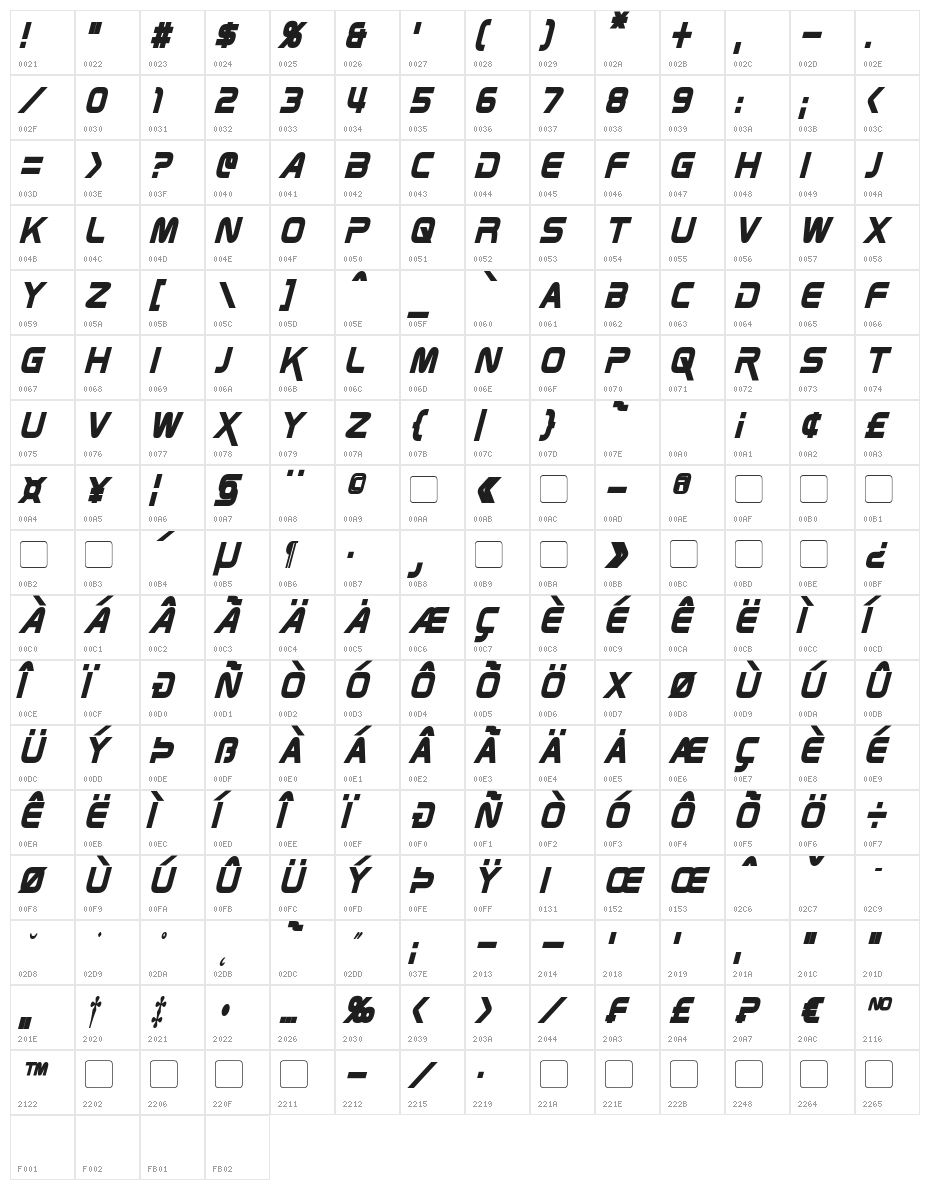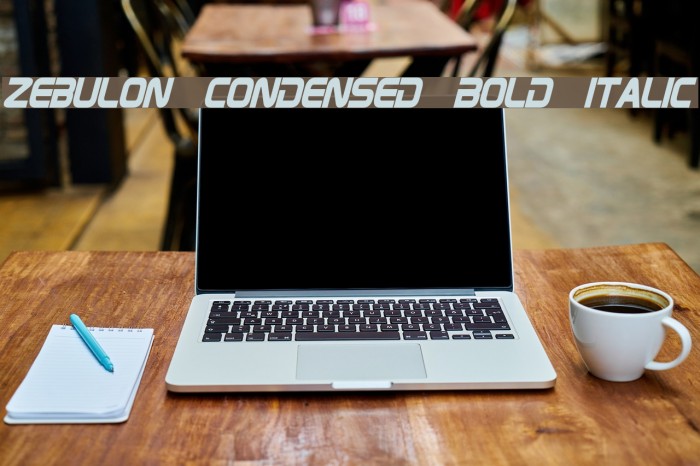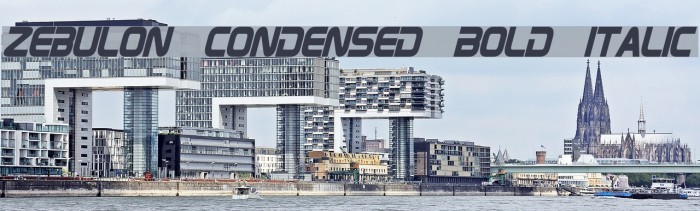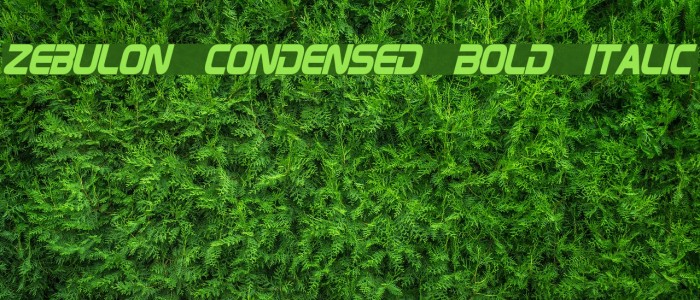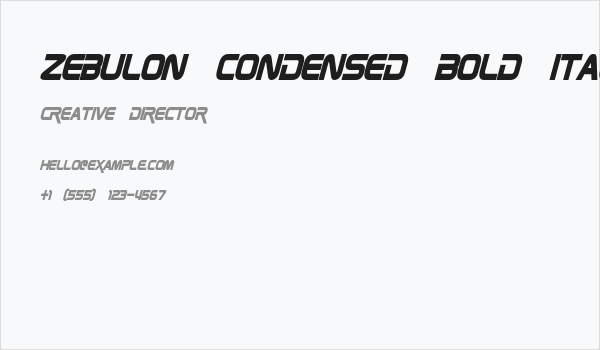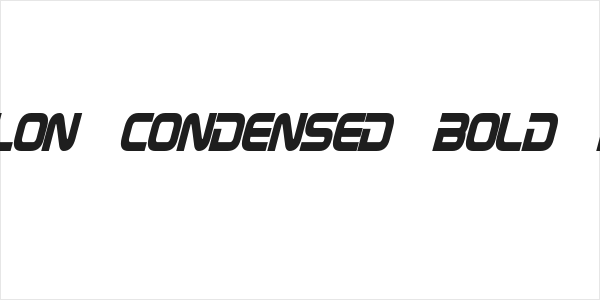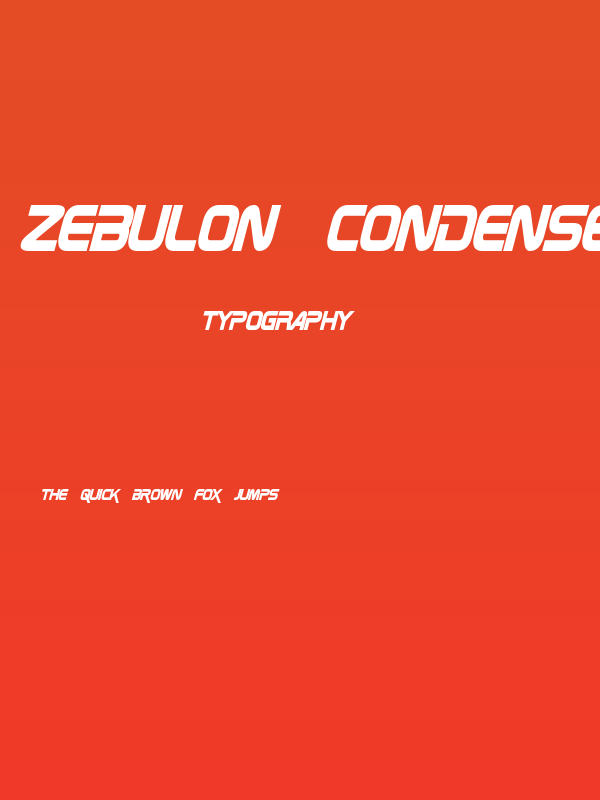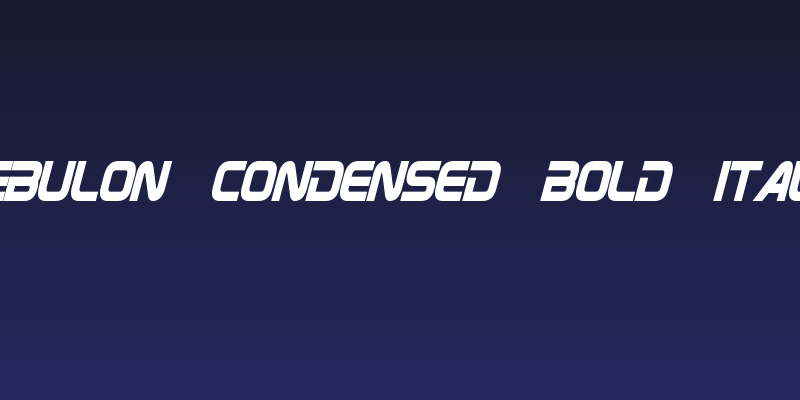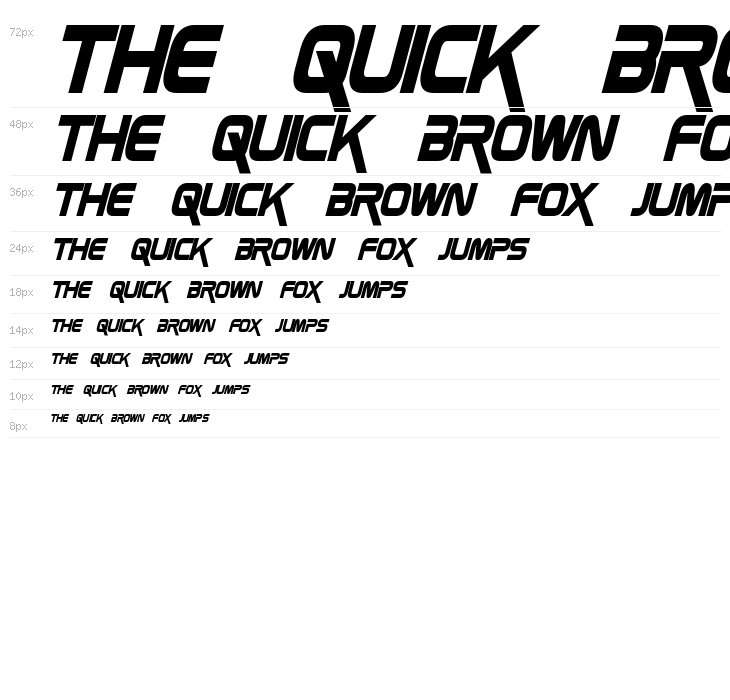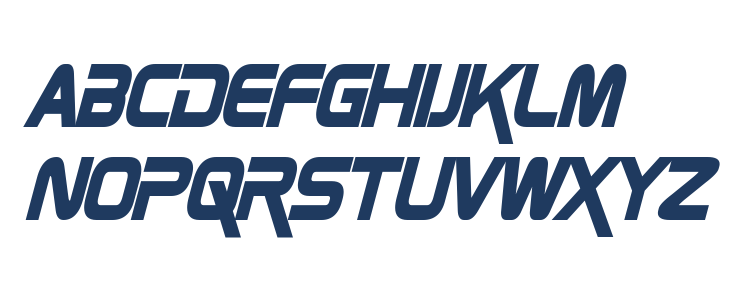
Zebulon Condensed Bold Italic Font
Zebulon Condensed Bold Italic Description
This font features a bold and italicized style with a condensed width, giving it a dynamic and modern appearance. The characters are sharply angled, creating a sense of motion and energy. The uppercase and lowercase letters maintain a consistent height, contributing to a uniform look. The numbers and special characters are designed with the same boldness and slant, ensuring cohesion across all elements. The font's condensed nature makes it ideal for space-saving applications while still maintaining readability. Its strong presence and unique style make it suitable for attention-grabbing designs.
| Proposed Projects | Ideal for sports branding, dynamic posters, futuristic designs, and impactful headlines. |